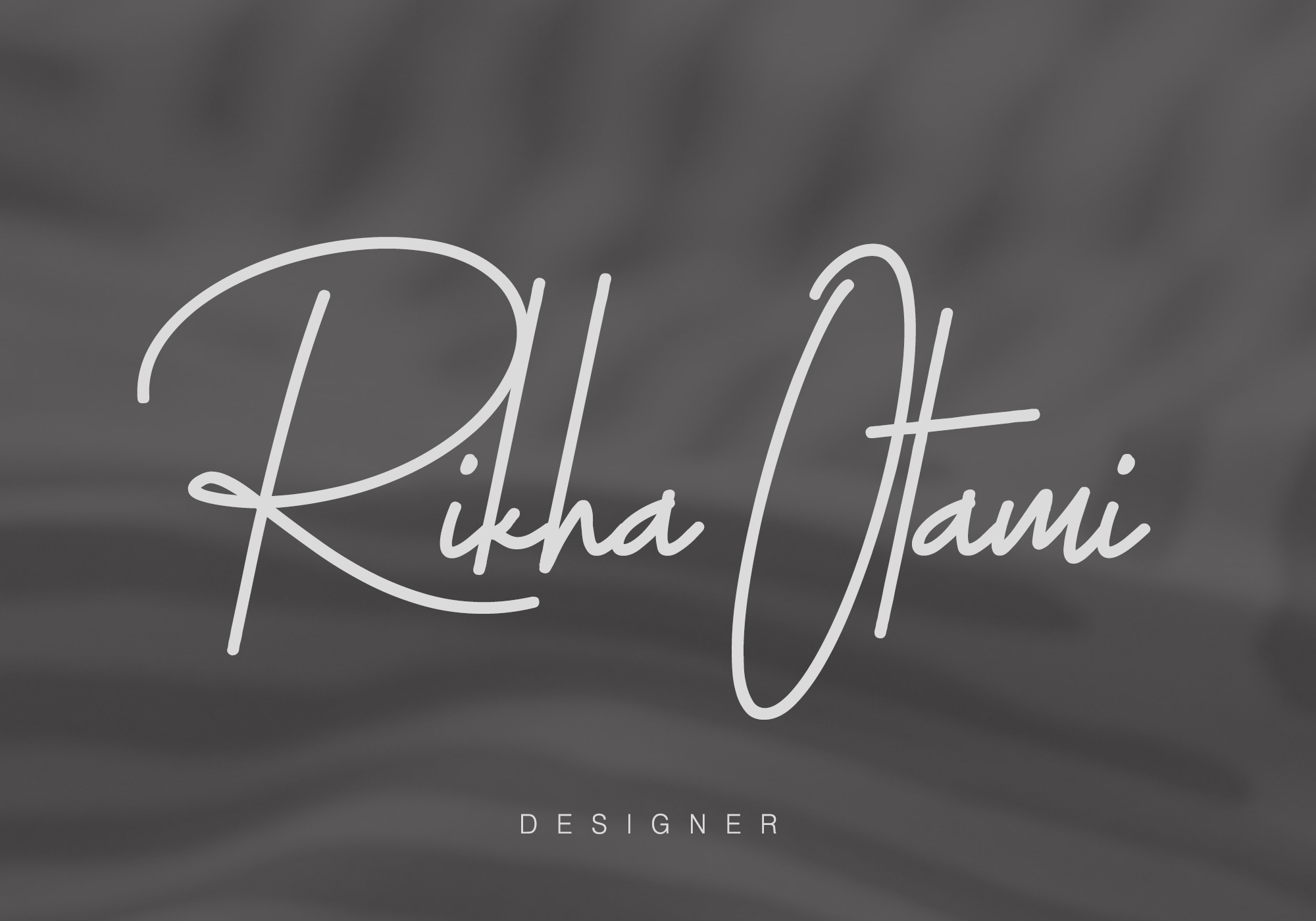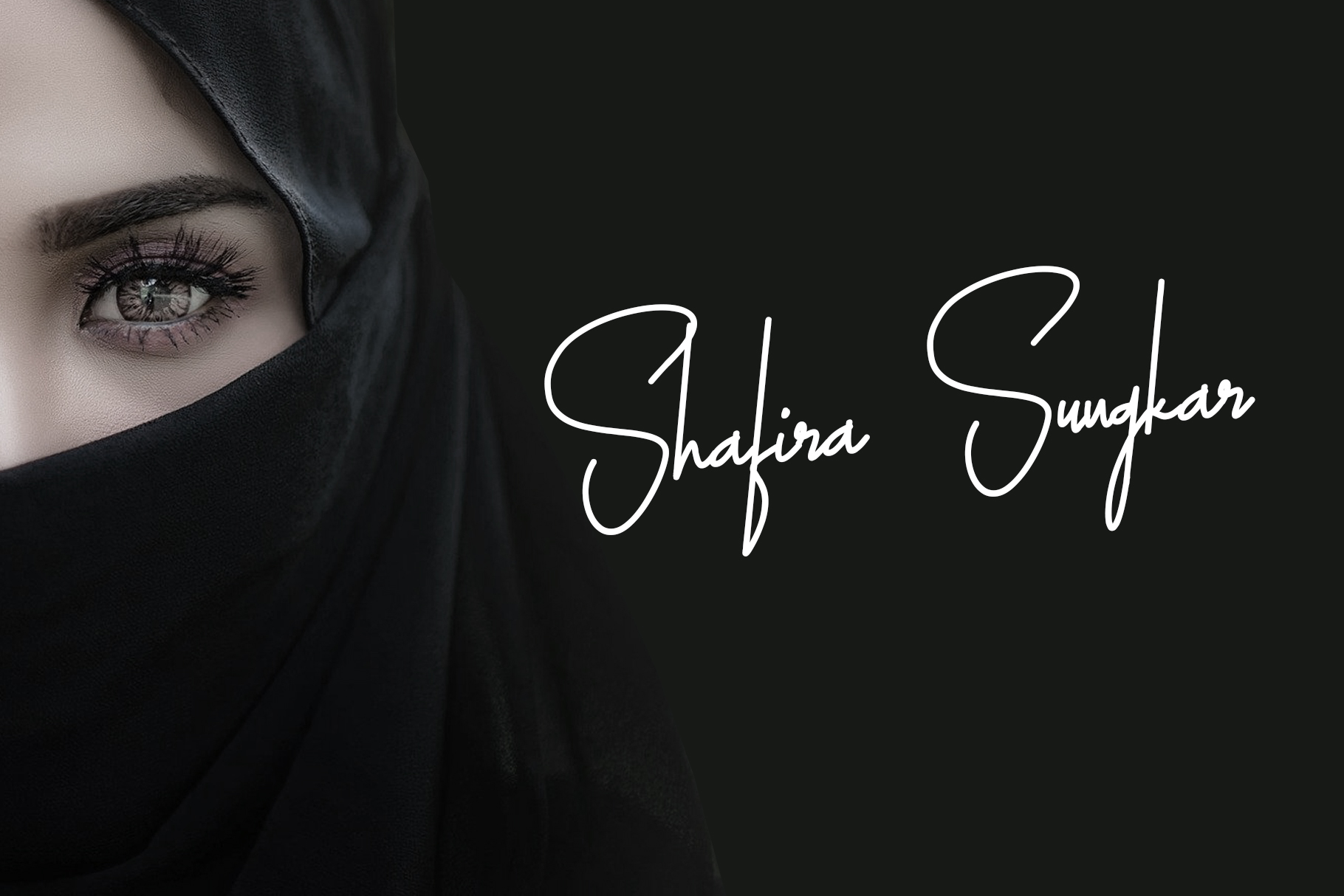
Aalbasta Signature Font
Aalbasta Signature Font for those of you who are looking for a signature font, this is perfect for magazine or book covers, stationery, logos, typographic quotes, magazine or book covers, website headers, clothing, branding, packaging designs, and other designs.